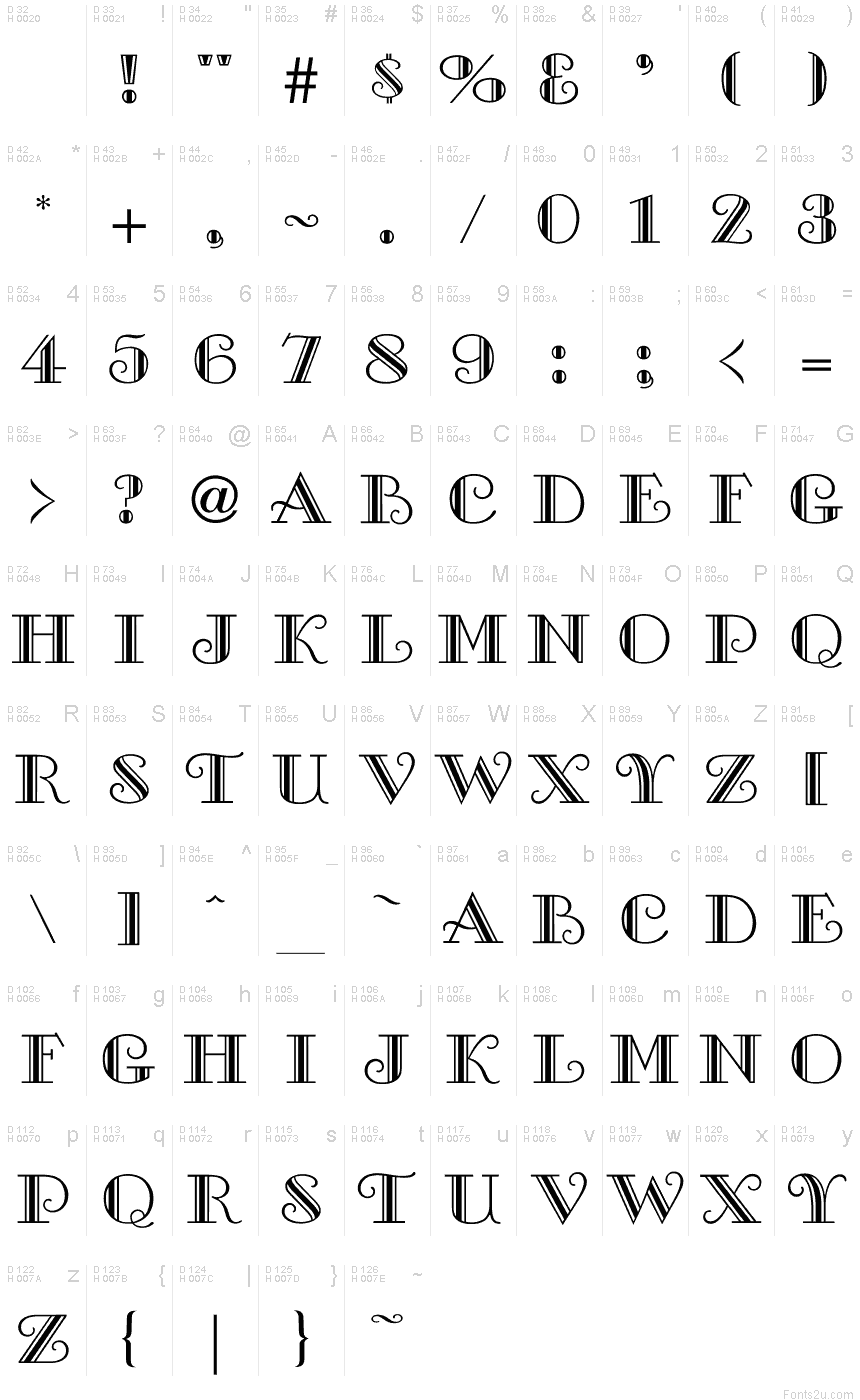
Cambridgeside by ALLTYPE is a free Art Deco display font built from elegant outlined capitals and pronounced shifts between hairline and broad strokes. Its tall, open forms combine sweeping curves with sharp geometric diagonals. Fine internal rules echo engraved lettering, adding intricate structure to the crisp, architectural silhouette.
Rooted in Jazz Age glamour, it is a convincing choice for theater posters, cocktail bar branding, and fashion editorials. The stately proportions also suit invitation suites and luxury packaging aimed at formal celebrations or upscale hospitality. Across these settings, the repeated inner lines can act like etched ornament, linking the type directly to borders, metallic details, and period illustration.